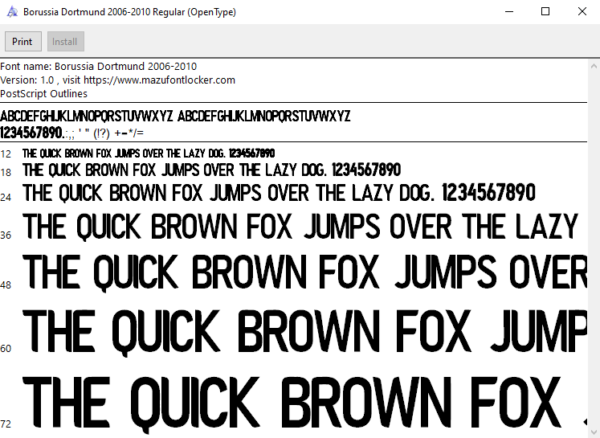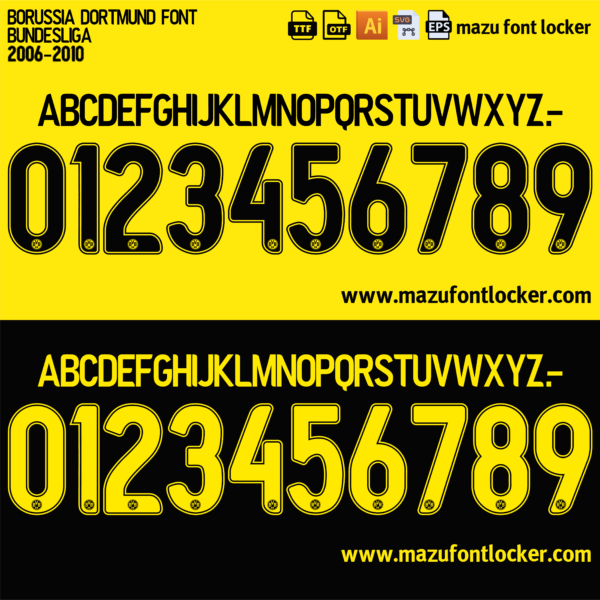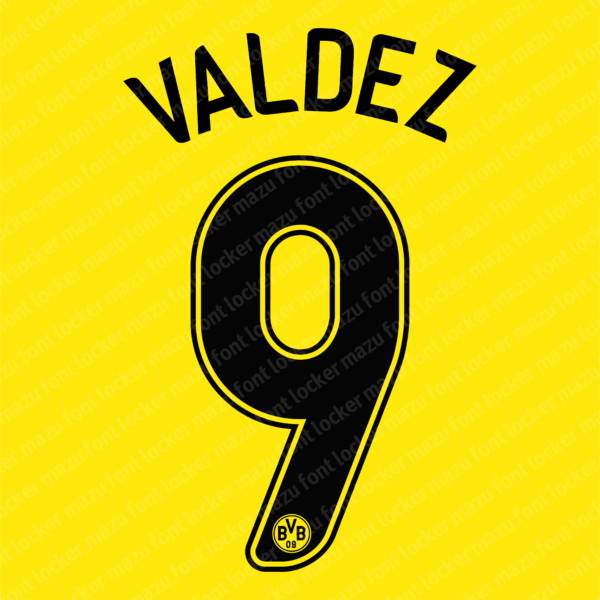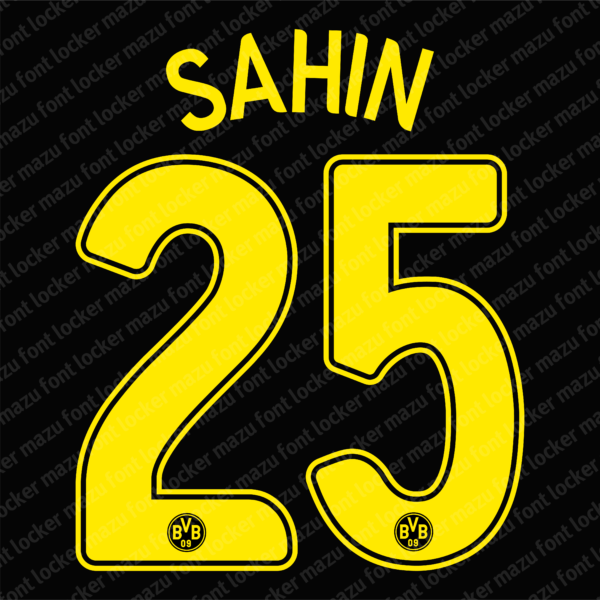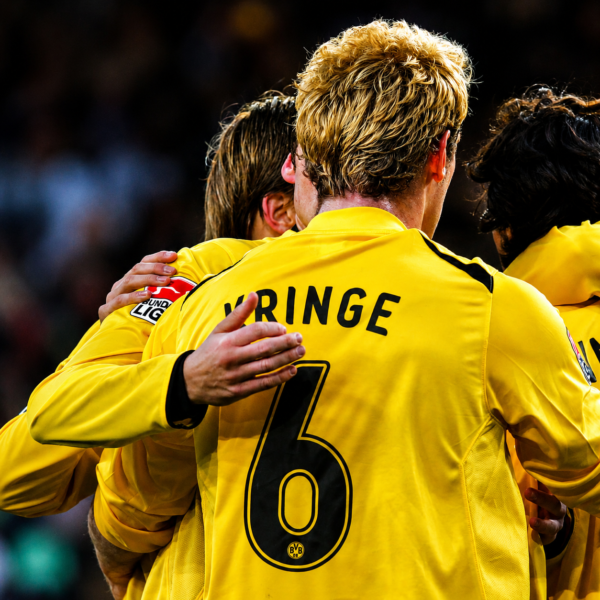
Borussia Dortmund 2006-2010 Font Vector – Thrilling Klopp Era Masterpiece
Download Borussia Dortmund 2006-2010 Font and relive the golden era of one of football’s most passionate clubs. This high-resolution, scalable vector font perfectly captures the bold, powerful typography used during Borussia Dortmund’s unforgettable 2006-2010 period — the time when Jürgen Klopp’s team rose as a force to be reckoned with.
The Borussia Dortmund 2006-2010 Font delivers sharp, clean lines with authentic Bundesliga character, making it ideal for posters, t-shirts, banners, digital designs, and merchandise. Whether you’re creating fan art, retro kits, or modern football-themed projects, this premium font gives your designs that intense, energetic Dortmund spirit.
Professionally crafted for both print and digital use, the Borussia Dortmund 2006-2010 Font ensures maximum clarity and impact across all sizes. Stand out with the same iconic lettering that once roared across the Signal Iduna Park. Perfect for designers, football enthusiasts, and collectors who want to own a piece of football history.
Borussia Dortmund 2006-2010 Font Vector
The Borussia Dortmund 2006-2010 Font is a premium, high-precision football jersey font vector meticulously engineered to capture the raw aggression, fearless energy, and electrifying identity of Borussia Dortmund’s legendary 2006-2010 era.
Inspired by the explosive rise of Jürgen Klopp’s Yellow Wall warriors — the period when Klopp transformed a struggling club into a fearless attacking machine that shocked Europe — this font unleashes a bold, brutal, and devastatingly powerful presence. Every letter and number has been painstakingly recreated with razor-sharp precision to embody the iconic black and yellow identity, relentless warrior mentality, and the pure, unfiltered aggression that defined Dortmund’s unforgettable Klopp era.
🔥 Borussia Dortmund 2006-2010 Font Features
• Authentic 2006-2010 Borussia Dortmund jersey lettering style
The authentic lettering style helps recreate the classic look of the Borussia Dortmund 2006-2010 kit with professional accuracy.
Unlike generic jersey fonts, this set is designed with uncompromising focus on authenticity and accuracy. Every detail is meticulously recreated based on the original match lettering style used by Borussia Dortmund during their explosive 2006-2010 era, helping designers and collectors create ultra-realistic football shirt designs that radiate the fearless energy, raw aggression, and unforgettable Klopp-era intensity.
This Borussia Dortmund 2006-2010 font vector set is designed for authentic football jersey customization and works perfectly for retro football projects, collector designs, and professional sportswear artwork.